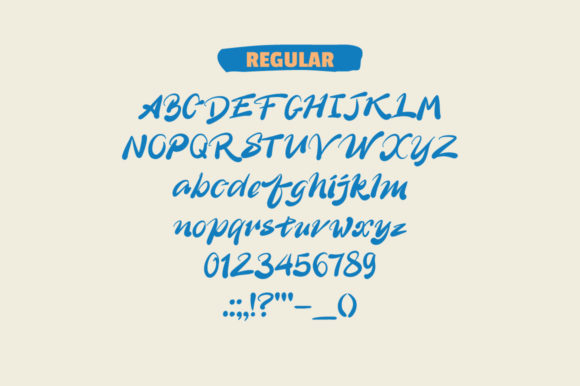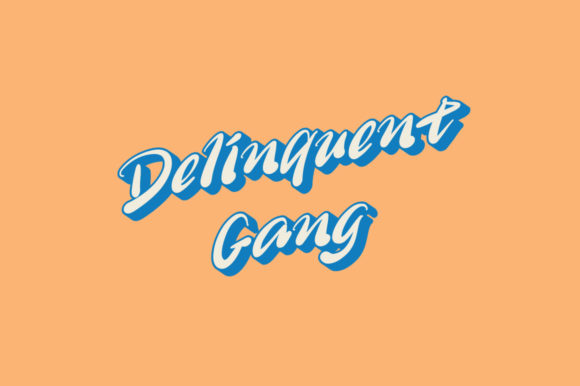
Arunika Font
db-ku.com - Script & Handwritten -- Arunika is a handmade script font with a unique style that would be awesome for your design projects. It's a great fit for logos, quotes, t-shirts, posters, or anything else.